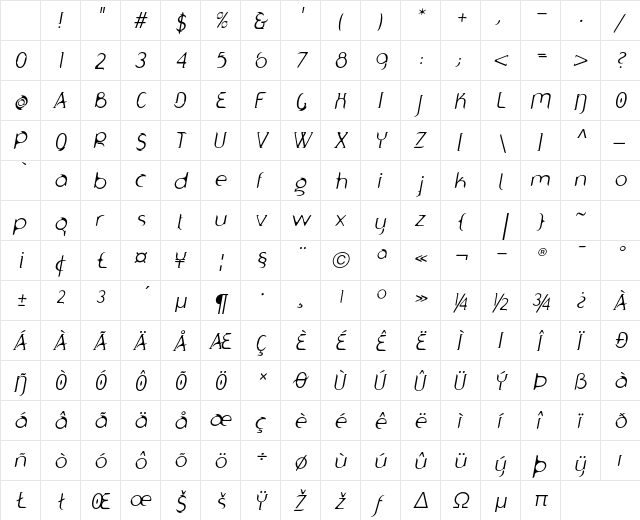
Complete Sharquefin LT Std Oblique glyph index. Displaying only characters natively supported by Sharquefin LT Std Oblique font.
Sharquefin LT Std is a composed and adaptable typeface that performs quietly and consistently across a wide range of design contexts. The slanted form adds forward momentum and visual energy. Its slender proportions lend an understated elegance to any composition.